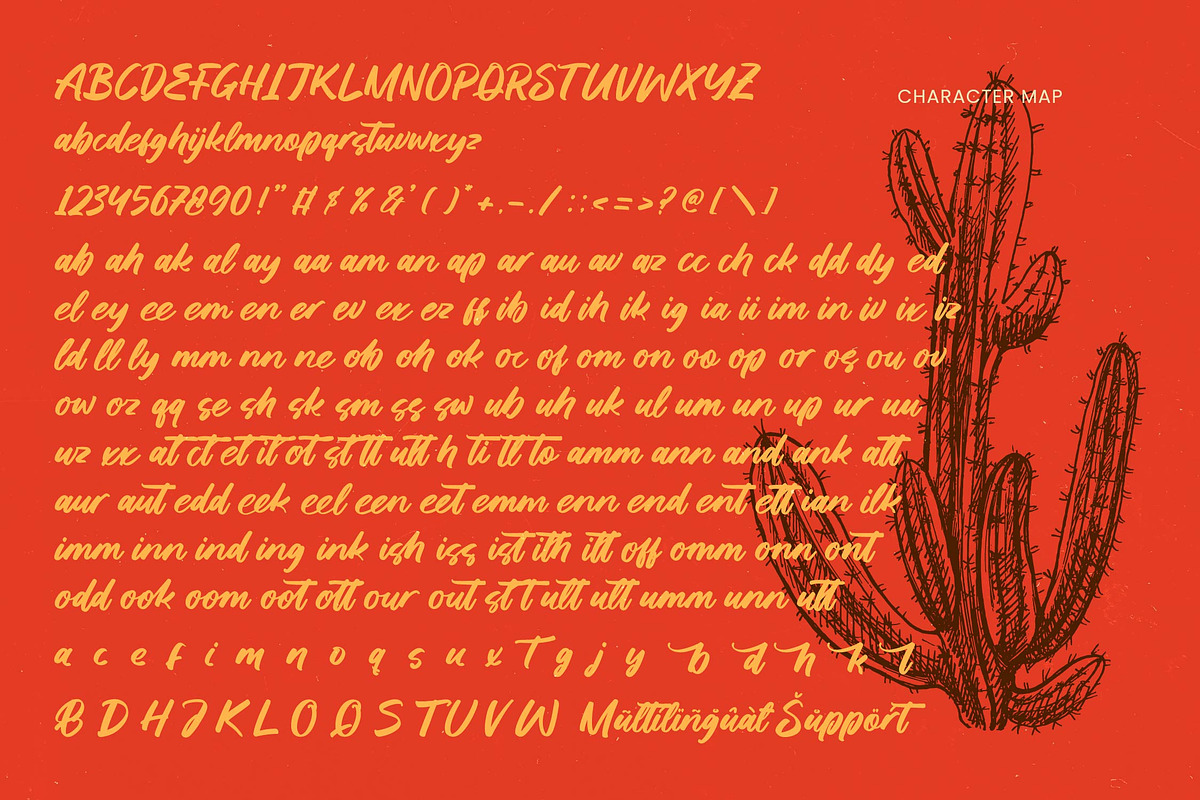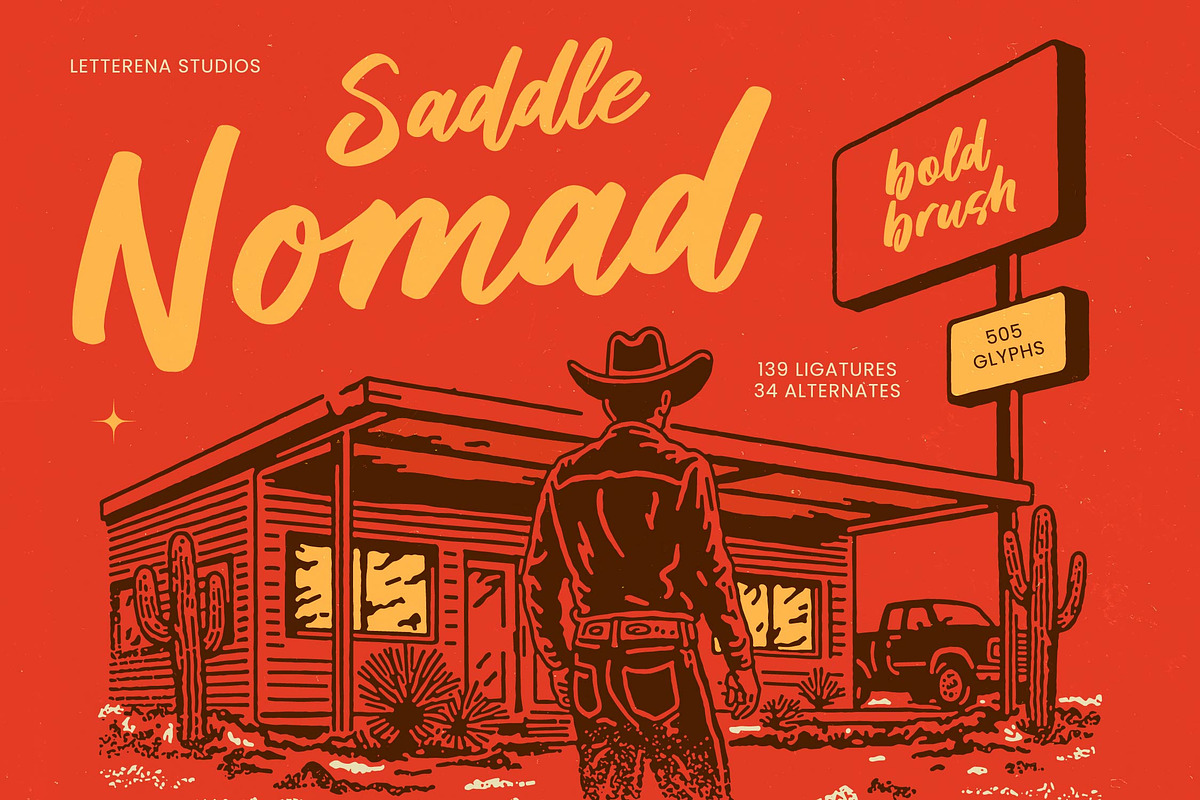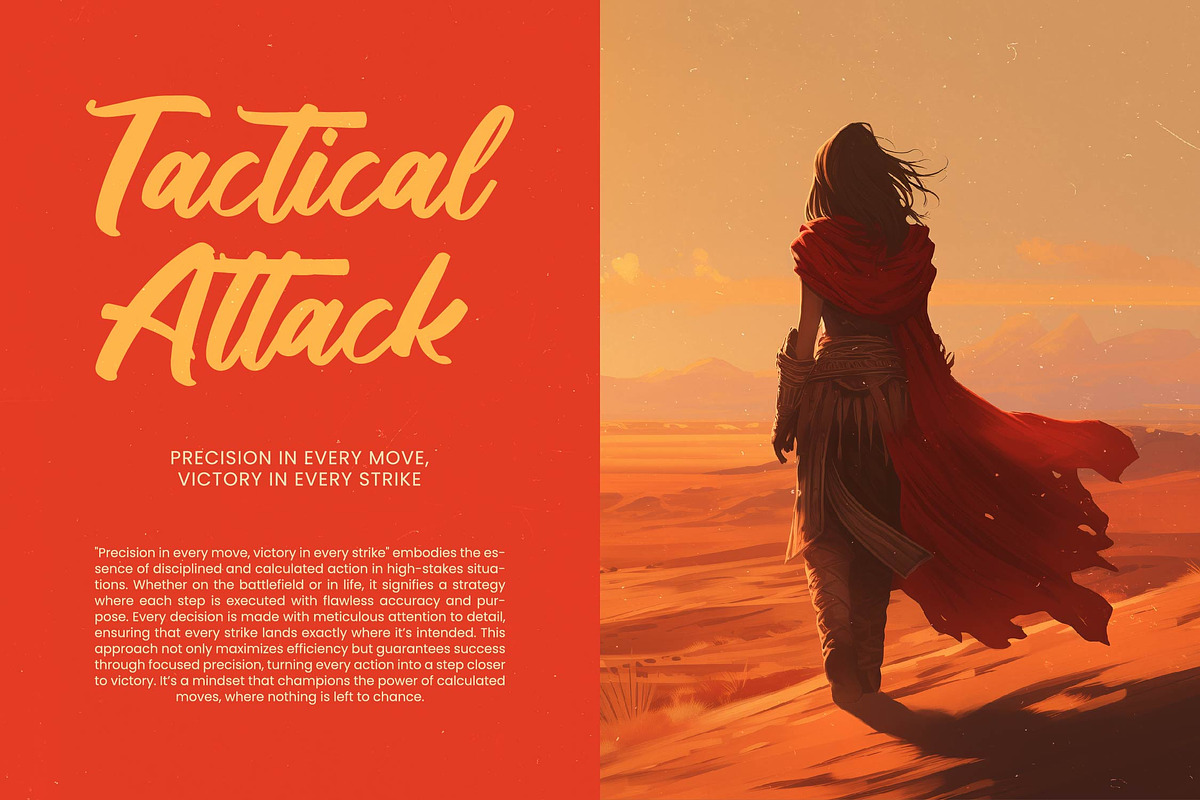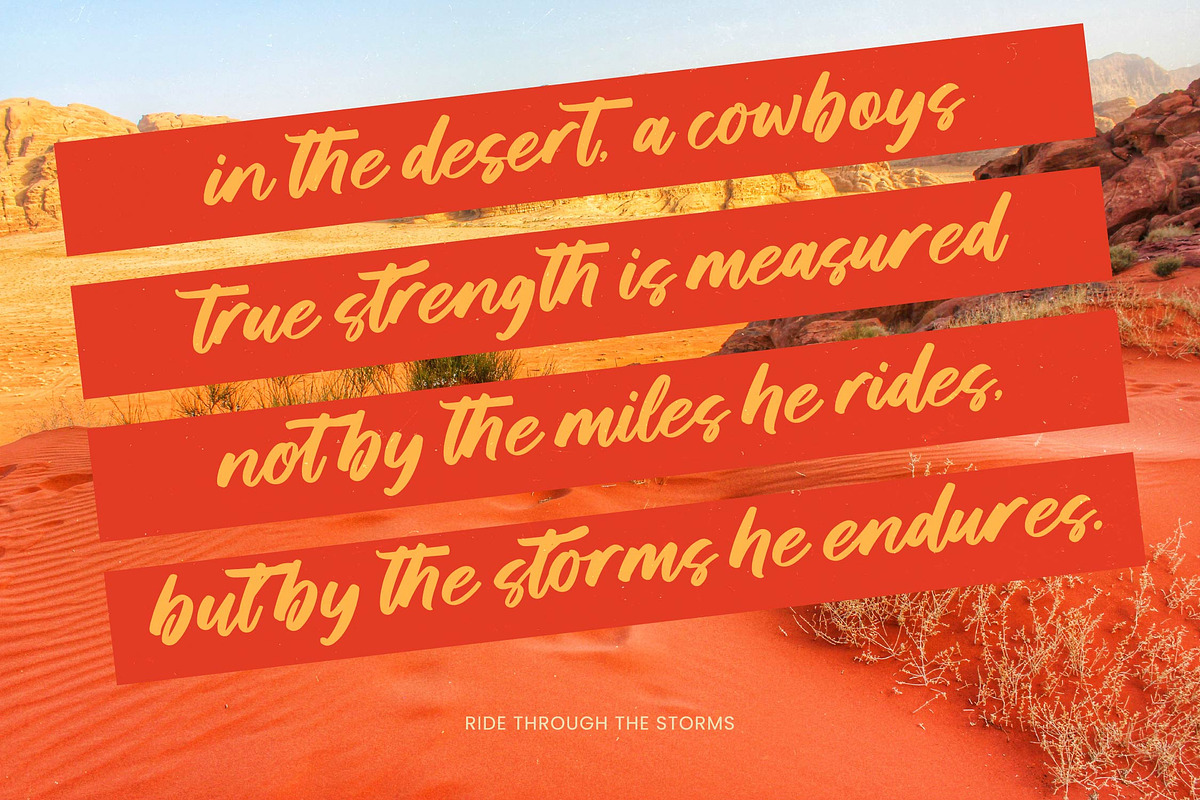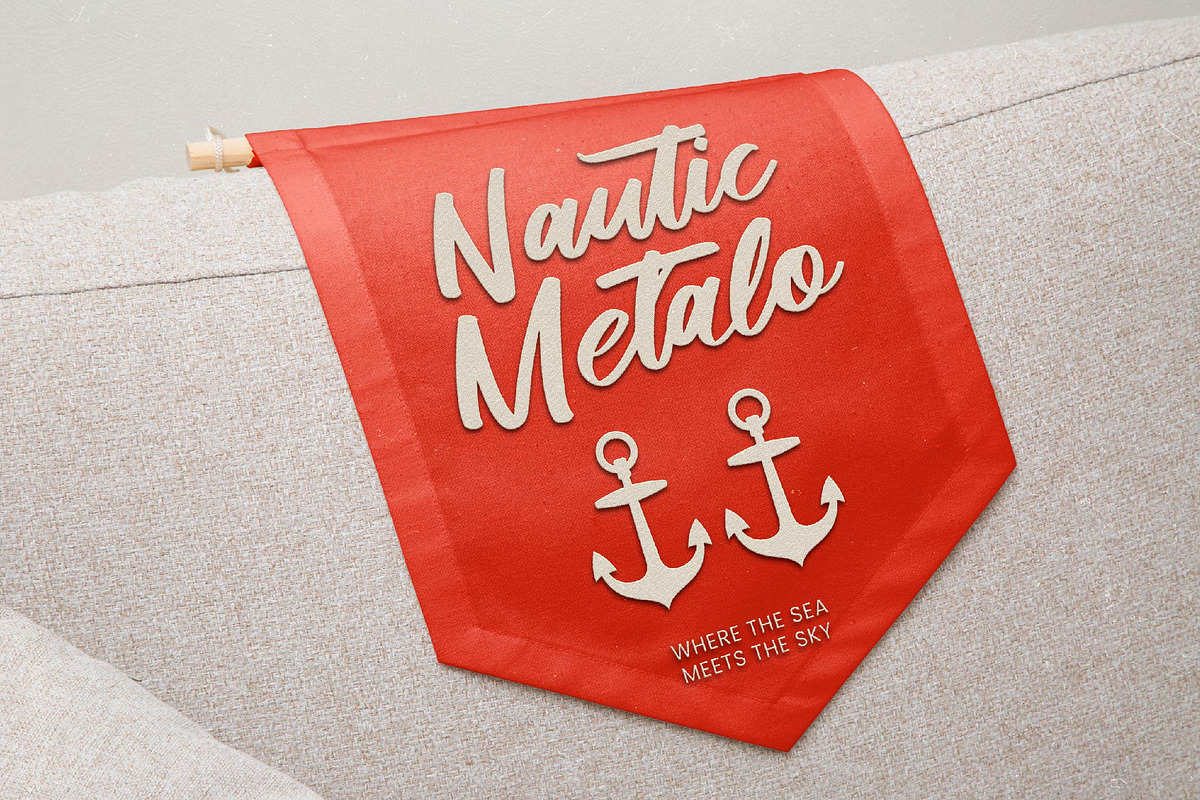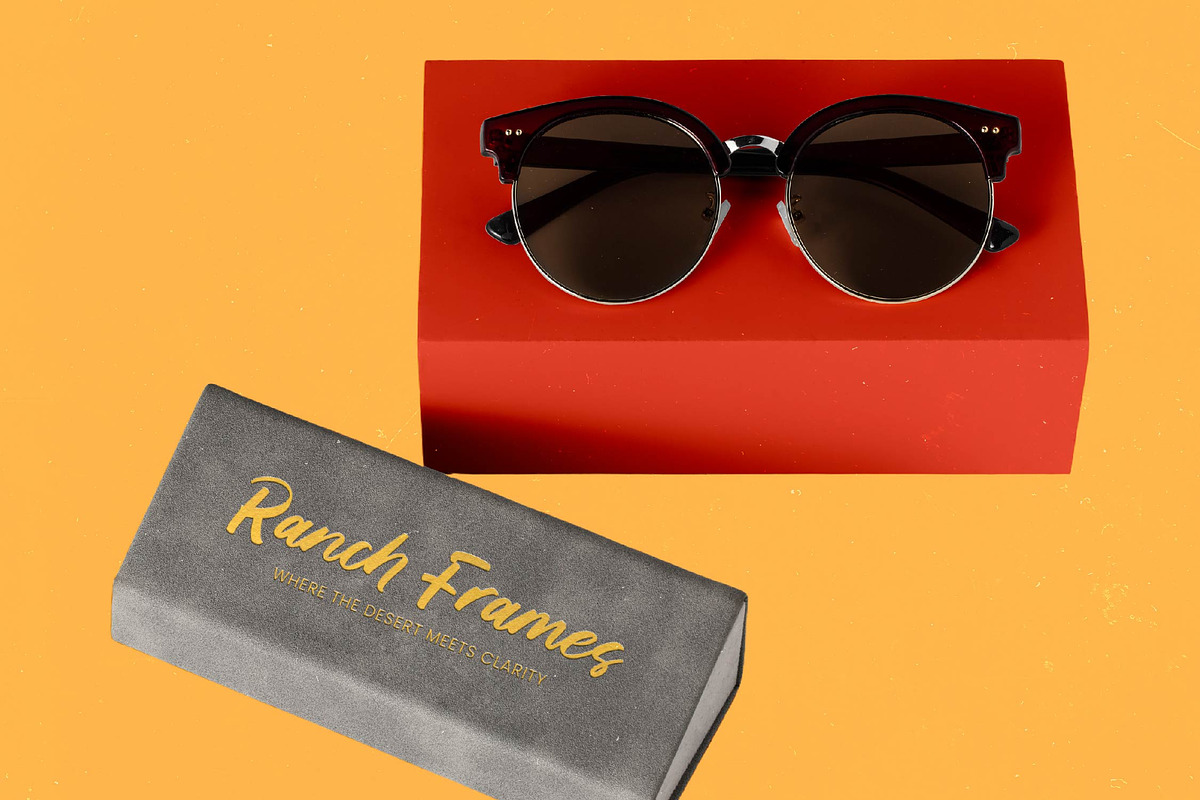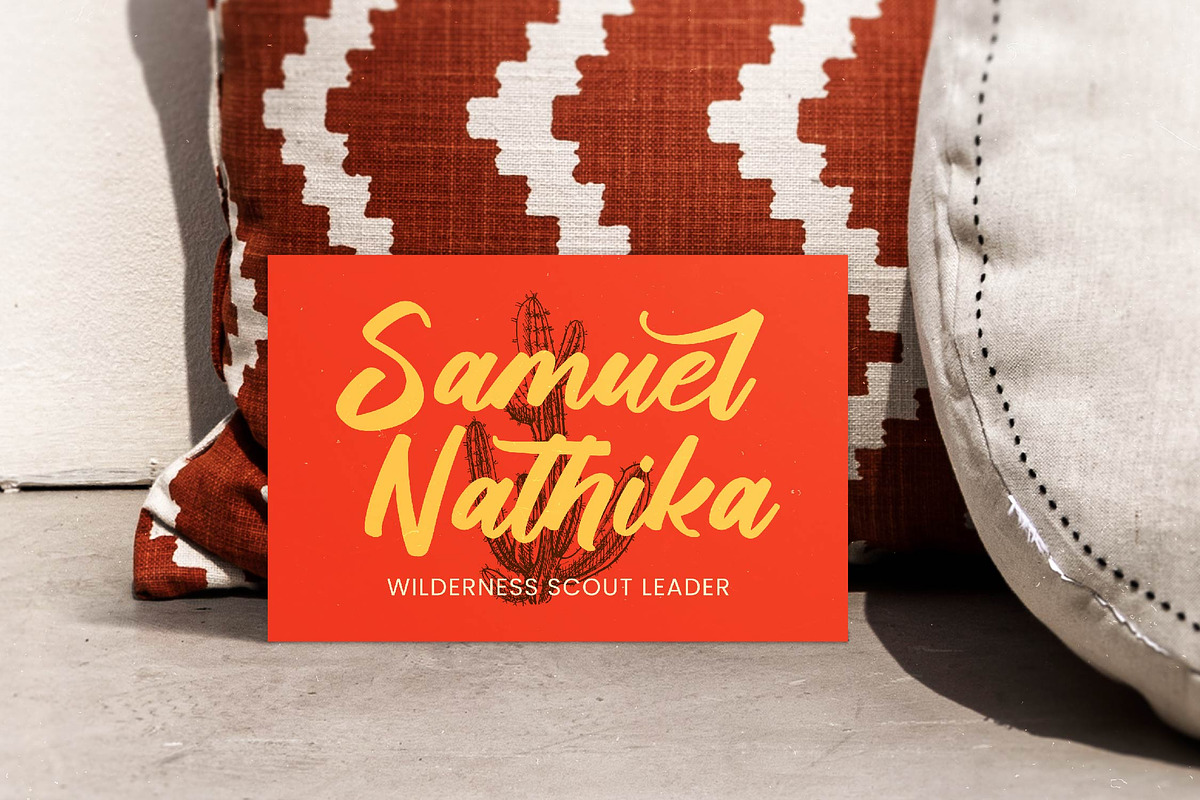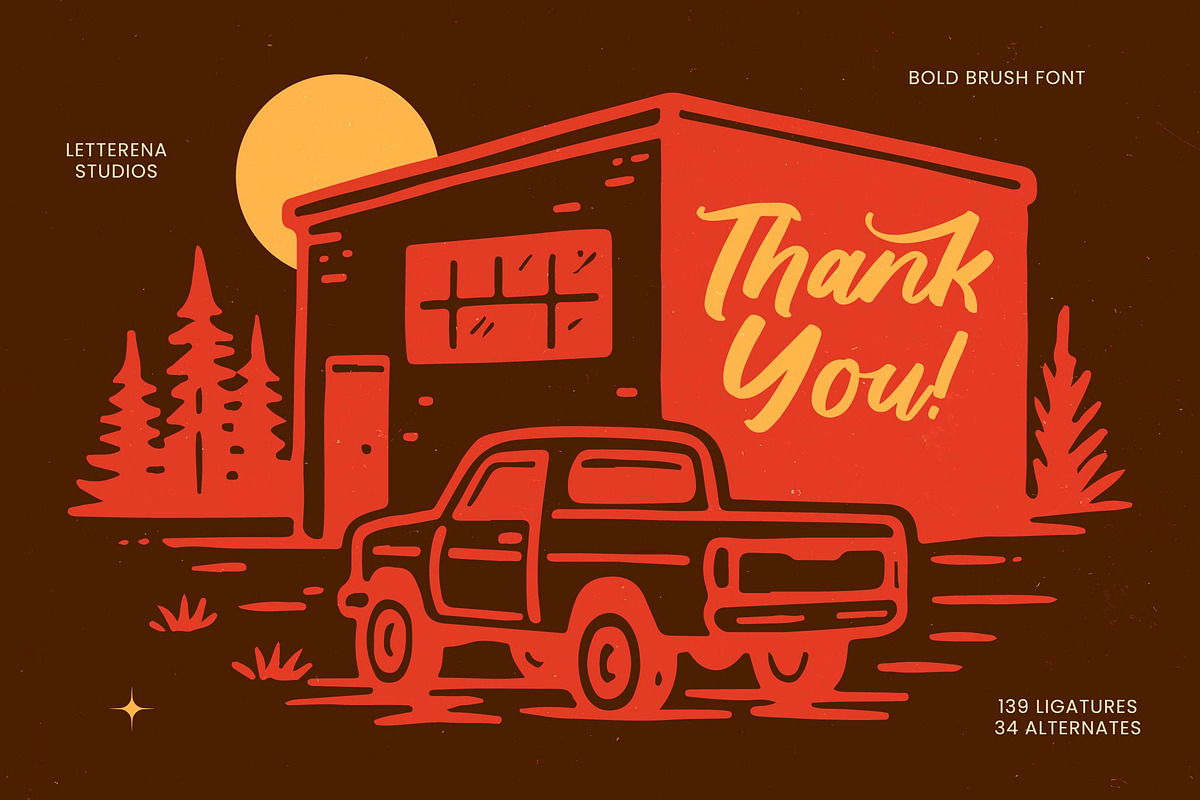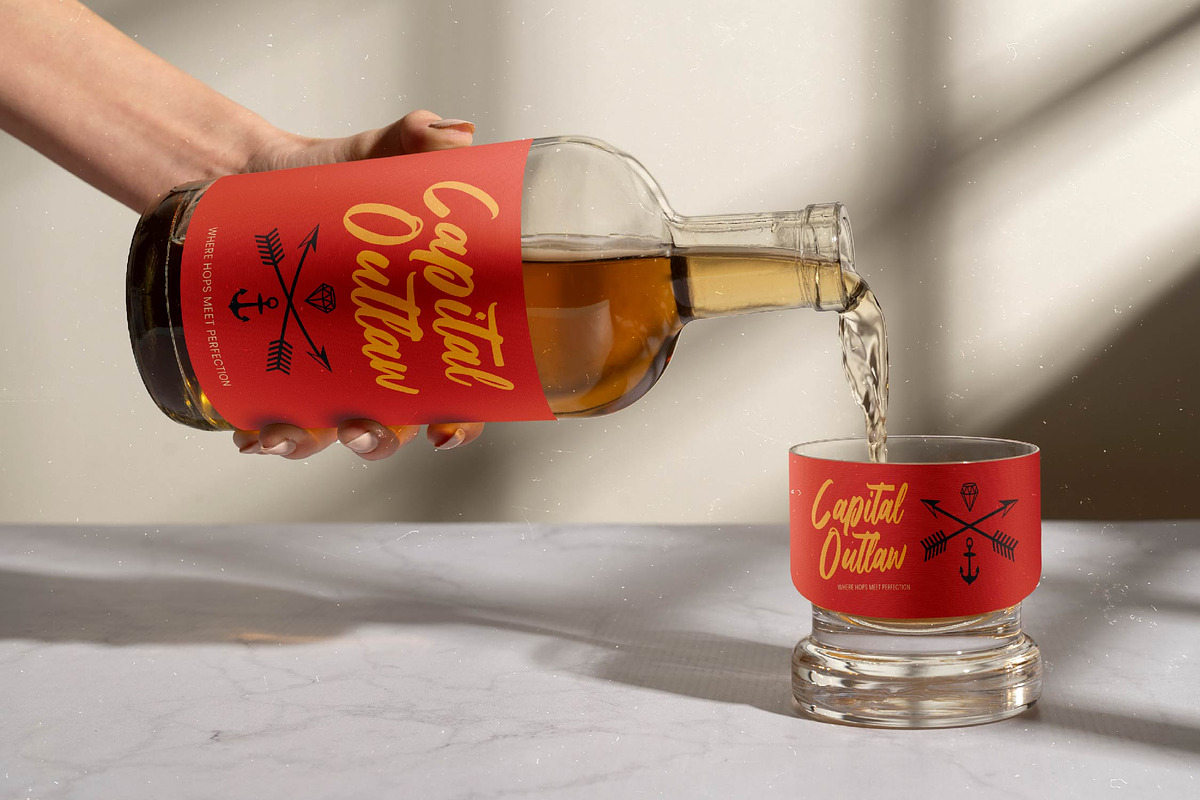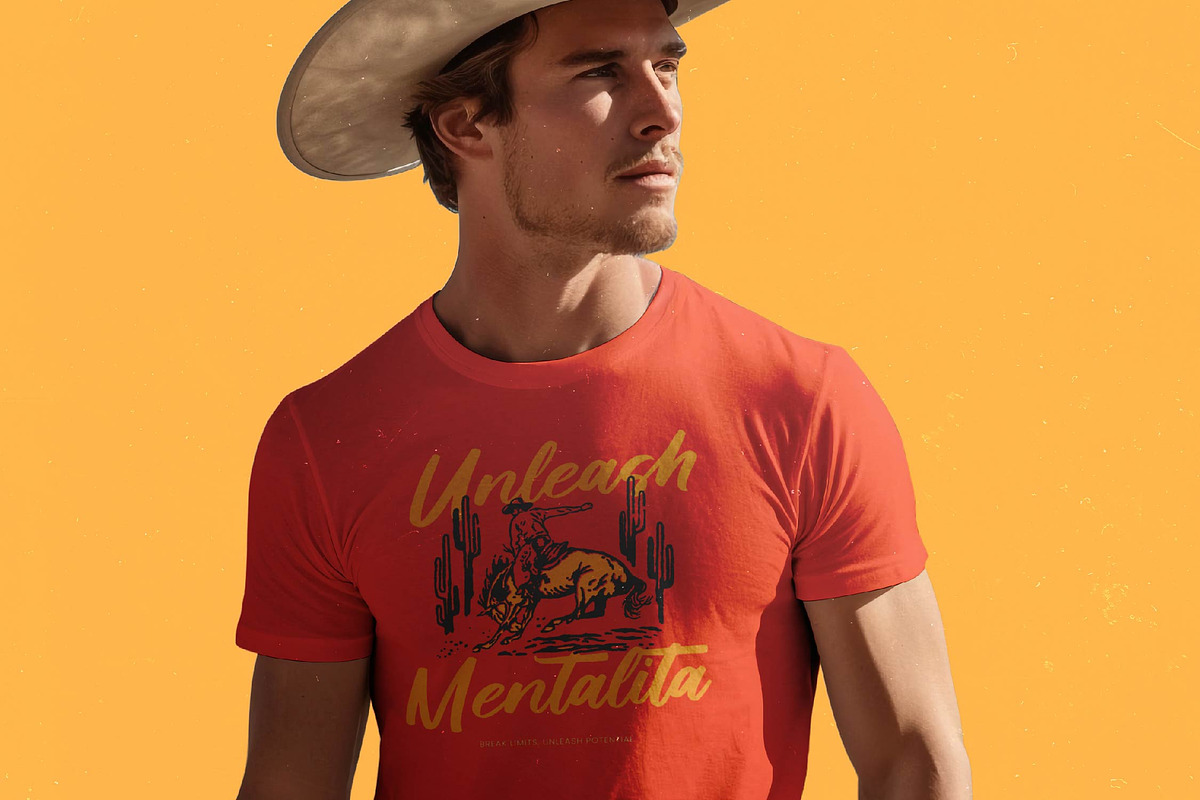
Saddle Nomad Bold Brush
Saddle Nomad - Bold Brush , Unleash the raw energy of the open road with Saddle Nomad - Bold Brush, a powerhouse script designed to command attention. This expressive brush typeface captures a perfect balance between vintage Americana and modern hand-drawn artistry. Its fluid, confident strokes and bold weight make it an ideal choice for creators seeking to infuse their projects with a sense of adventure and rugged sophistication.
Elevate your creative toolkit with unmatched flexibility provided by Saddle Nomad - Bold Brush. Boasting an impressive collection of 505 glyphs, including 139 ligatures and 34 alternates, this font allows for truly custom-lettered appearances. These features ensure that every design remains unique, providing a dynamic flow that mimics authentic hand-painted signage found along the legendary highways of the West.
Expand your brand’s reach without limitations or linguistic barriers. With its extensive multilingual support, Saddle Nomad - Bold Brush adapts seamlessly across global markets, making it incredibly versatile for international projects. This comprehensive character set ensures that your visual identity remains consistent and impactful, regardless of the language or region, solidifying Saddle Nomad - Bold Brush as a global design asset.
Discover the ideal application for this high-performance typeface within the worlds of lifestyle branding and visual storytelling. Saddle Nomad - Bold Brush is perfect for premium packaging, outdoor apparel, craft beverage labels, and cinematic titles. Its authoritative presence and organic texture ensure that your message is not just seen, but felt, making it a must-have tool for designers aiming for a bold, adventurous aesthetic.
Numerals
Punctuations (OpenType Standard)
Accents (Multilingual Characters)
Ligatures and Alternative Style Stylistic Set